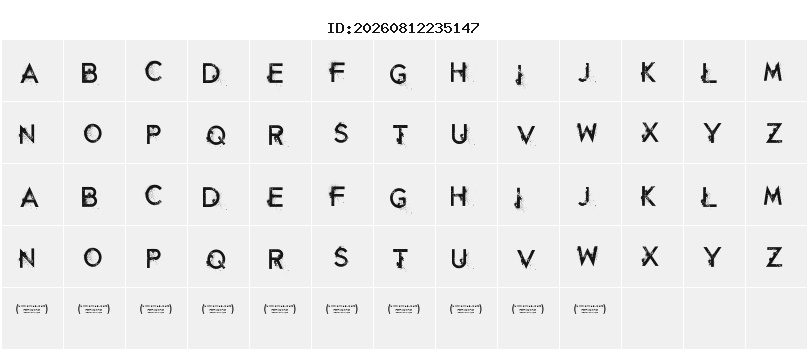
Retaliation Preview
• Font Name: Retaliation
• Designer: Chris Vile
• Manufacturer: Fonts by GKDN (www.gwizsk.com)
• Description: retaliation Regular is a font by Fonts by GKDN (www.gwizsk.com), designed by Chris Vile in 2012.
About Retaliation.ttf
Retaliation.ttf is a modern, elegant sans-serif font designed for ultimate readability and visual harmony. Perfect for branding, headlines, web design, and print materials.